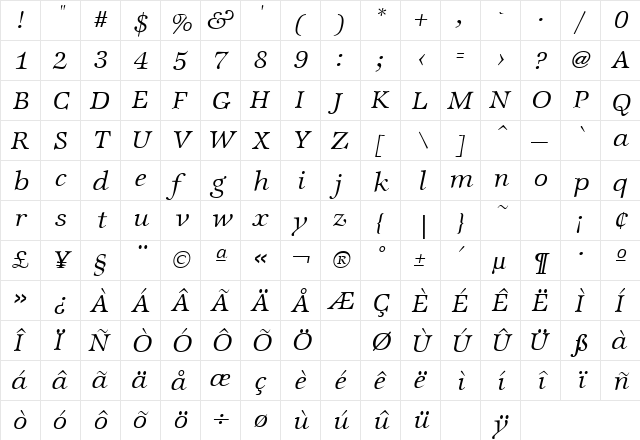
Zapf International Light Italic
Design Context for Zapf International Light Typeface
Zapf International Light offers clean, dependable letterforms without strong stylistic allegiance, making it a practical choice for designers who need flexibility. The slanted form adds forward momentum and visual energy. The delicate stroke weight brings airiness and refinement to layouts.
Pro Tip: Use Zapf International Light for emphasis, pull quotes, and subheadings where its slanted energy can add rhythm to the layout.